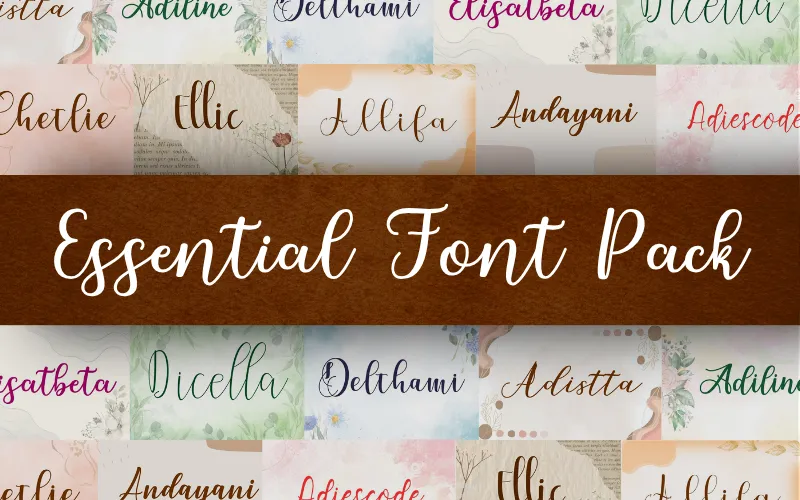
Add style, flair, and personality to your designs with the Essential Font Pack — a curated collection of 47 script font families (plus bonus fonts) that blend brush, calligraphy, vintage, and retro aesthetics. Each family includes stylistic alternates, swashes, ligatures, and extra glyphs so you can customize typography for branding, advertising, wedding stationery, social media, logos, and more.
- 47 script font families (plus bonus fonts)
- Multiple styles for most families: Script (regular), Italic, Outline, Shadow
- Bonus fonts included for many families
Font family highlights (base names)
- Amellia, Cinttliee, Elisabetta, Hello Valentines, Media, Oh No Here, Qarteela, Sakiescript, The Revolution, Undella, Valentine, Zafrina, Zattire, Zettina, Zindela, Zintrella, Zistina, Zivetta, Zolivia, Zoretta, Zovella, Zurella, Zynetta, and more
Bonus fonts included (selected)
- Amellia Script Bonus, Bonus Qarteela, Bonus Undella, Cinttliee Script Bonus, Elisabetta Script Bonus, Hello Valentine’s Bonus, Media Script Bonus, Oh No Here Script Bonus, Sakiescript Bonus, The Revolution Bonus, Valentine Script Bonus, Zafrina Script Bonus, Zattire Script Bonus, Zettina Script Bonus, Zindela Script Bonus, Zintrella Script Bonus, Zistina Script Bonus, Zivetta Script Bonus, Zolivia Script Bonus, Zoretta Script Bonus, Zovella Script Bonus, Zurella Script Bonus, Zynetta Script
Features
- 47 script fonts + bonus styles
- Alternates, ligatures, swashes, and extra glyphs
- Categories: Script, Display, Calligraphy
- Styles: Brush, Elegant, Vintage, Retro